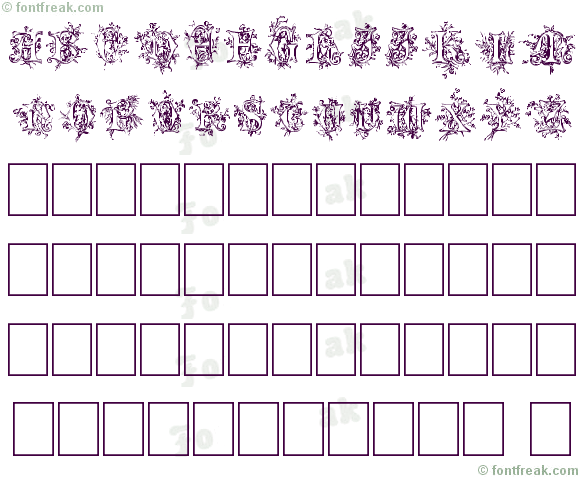
Cherubim Initials
About Cherubim
Cherubim by Paul Lloyd is an enchanting decorative font that beautifully blends calligraphic elegance with contemporary charm. This freeware typeface features a unique serif style that is both whimsical and sophisticated, making it an ideal choice for various creative projects. The strokes of the Cherubim font exhibit a graceful contrast, with varying weight that adds depth and character to each letter. The spacing between characters is thoughtfully designed to ensure readability while maintaining a sense of fluidity and grace, making it suitable for both headings and body text.
The visual characteristics of Cherubim are marked by its ornate flourishes and decorative elements, which evoke a sense of nostalgia and artistry. Each letter is crafted with meticulous attention to detail, showcasing swirls and curves that give the font a lively and dynamic appearance. This makes it particularly well-suited for a range of applications, including wedding invitations, where its romantic style can enhance the overall aesthetic. Cherubim is also perfect for movie posters, adding a touch of drama and elegance, as well as restaurant menus, where it can elevate the dining experience with its artistic flair. Additionally, it appeals to graphic designers looking to create unique branding materials or content creators seeking a distinctive touch for their projects.
The target audience for the Cherubim font includes graphic designers, small business owners, and content creators who appreciate the balance of tradition and modernity. What truly makes the Cherubim font stand out is its ability to evoke emotion while maintaining versatility, allowing it to shine across various mediums. With its captivating design and free availability, the Cherubim font free download offers a valuable addition to any designer's toolkit.